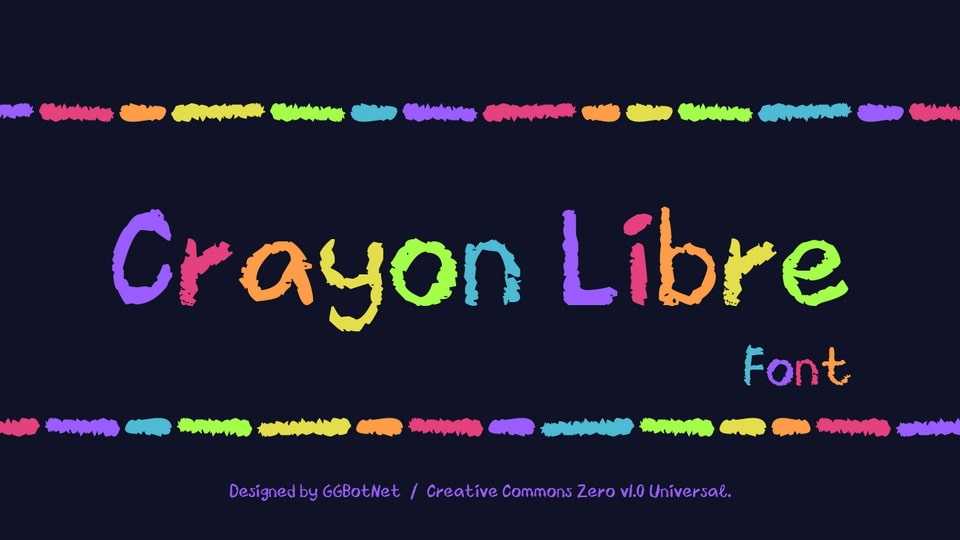
Download Crayon Libre font, a handwritten typeface that magically captures the nostalgic essence of crayons on a chalkboard. Crayon Libre font is perfect for designs that aim to infuse a sense of playful innocence and DIY authenticity.